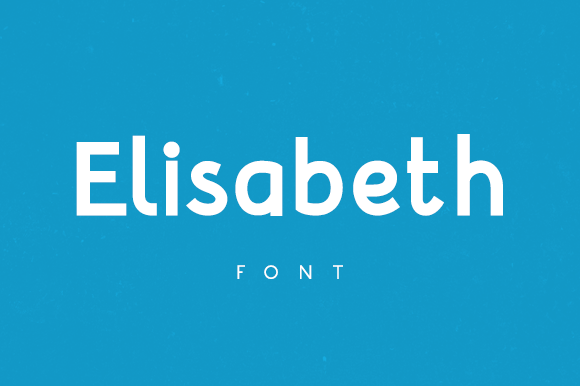
ELISABETH | FONT
Elisabeth is an free uppercase e lowercase display typeface inspired by the classic sans serif font family's. This typeface is, because of his many alternative options, perfect for usage in posters, text, and headlines